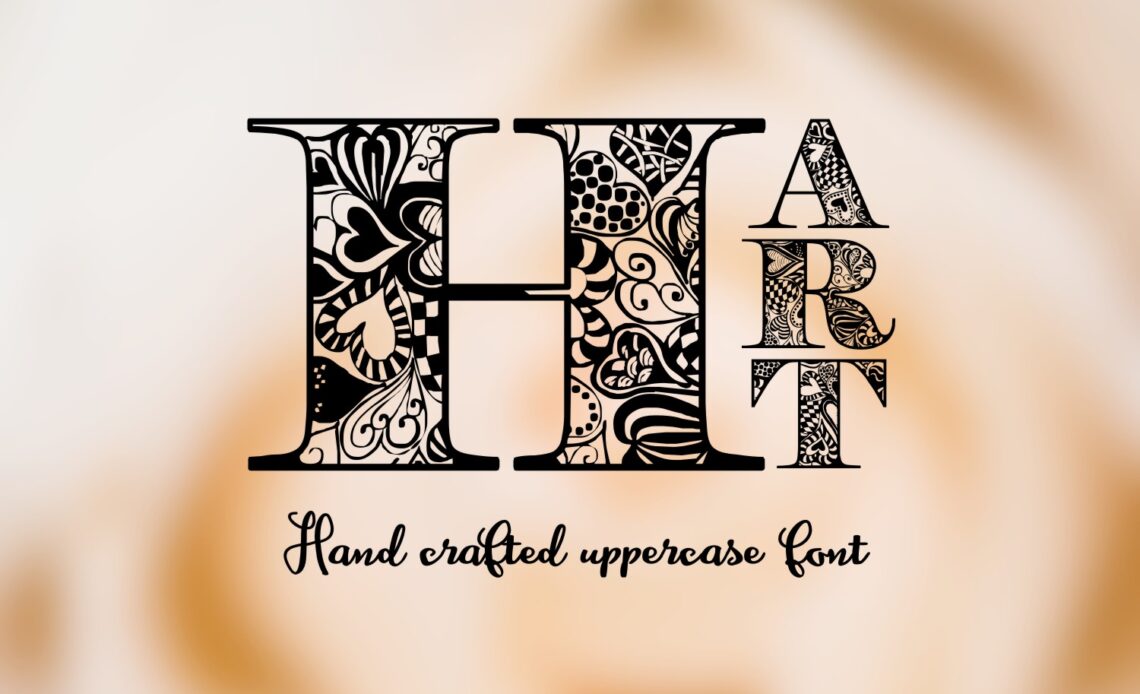
Introducing the Hart Font, a decorative uppercase font crafted by the ingenious Digital Typeface Studio. This handcrafted masterpiece is more than just a font; it's a gateway to unleashing charm and texture into your designs and crafting projects. Each letter exudes a unique character, adding a touch of elegance and sophistication to your creations.
Let your imagination soar as you delve into the world of Hart Font. Its captivating curves, delicate strokes, and intricate details will transform your designs, logos, posters, and social media posts into captivating works of art. Whether you're a seasoned designer or just starting, Hart Font will ignite your creativity and help you leave a lasting impression on your audience.
With Hart Font, you have the power to create personalized monograms that resonate with your brand's essence. Its distinctive style lends a touch of exclusivity, making each monogram a unique representation of your identity. Elevate your branding game and establish a strong presence in the market.
Hart Font's versatility knows no bounds. It effortlessly complements a wide range of design styles, from vintage to modern and everything in between. Its decorative nature adds a touch of whimsy and playfulness to wedding invitations, greeting cards, and party flyers. Let Hart Font infuse your designs with a captivating allure that will leave your audience spellbound.
Immerse yourself in the enchanting world of Hart Font and discover the endless possibilities it holds for your creative endeavors. Unleash your imagination, let your creativity flow, and watch as your designs come to life with a charm and elegance that will captivate hearts.